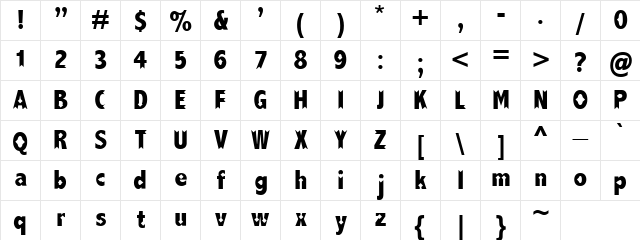
Prickly Pear Prickly Pear
Design Context for Prickly Pear Typeface
Prickly Pear is a composed and adaptable typeface that performs quietly and consistently across a wide range of design contexts.